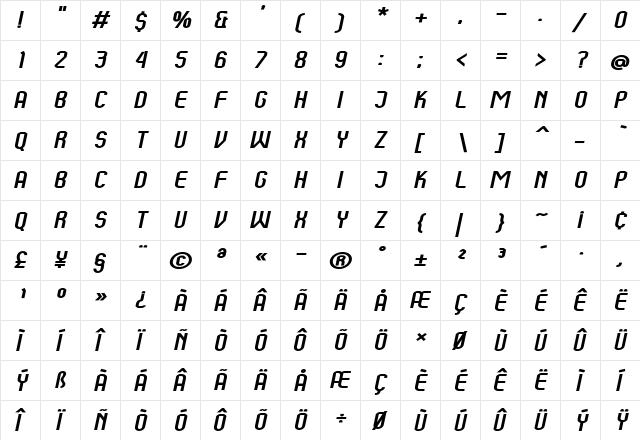
Kumba Expanded Italic
Design Context for Kumba Typeface
Kumba offers clean, dependable letterforms without strong stylistic allegiance, making it a practical choice for designers who need flexibility. The dynamic lean of this cut emphasises speed and emphasis in any layout.
Pro Tip: Use Kumba for emphasis, pull quotes, and subheadings where its slanted energy can add rhythm to the layout.